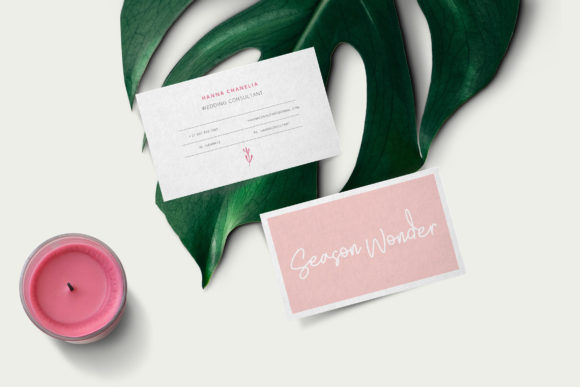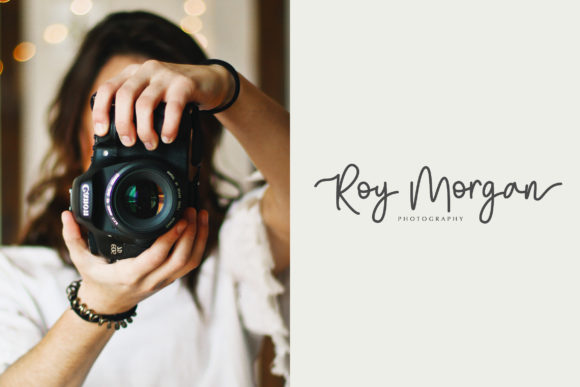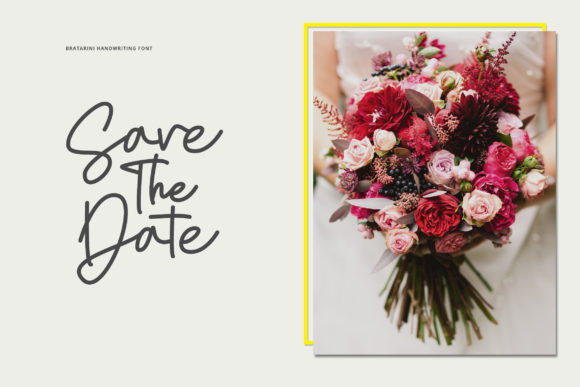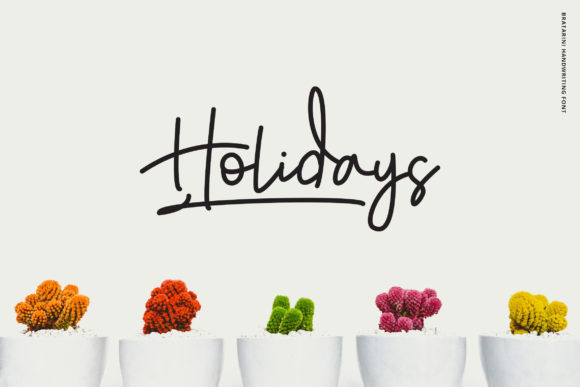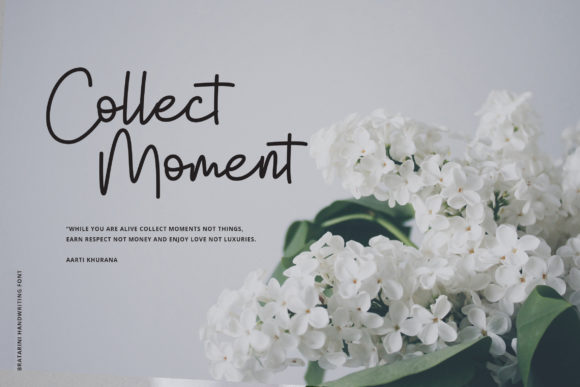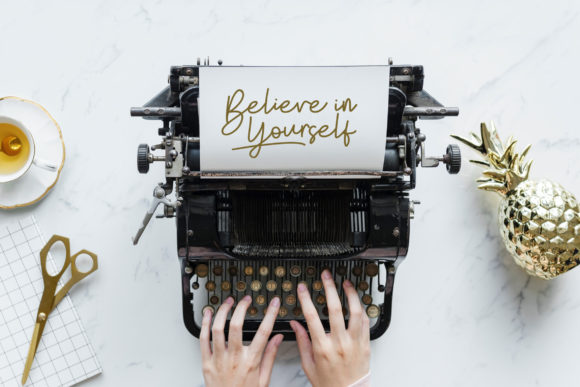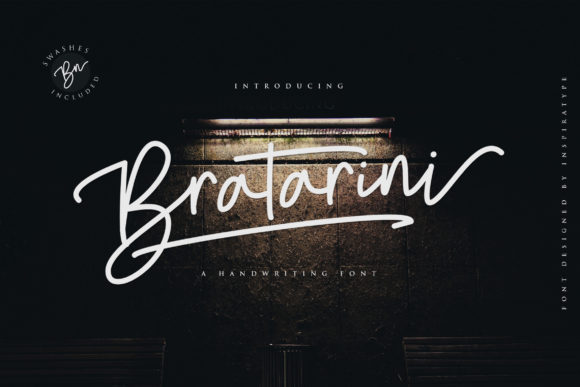
Discover the Charm of Bratarini Font: A Light and Breezy Handwritten Delight
Are you a designer or crafter looking for a font that exudes a sense of carefree elegance? Look no further than Bratarini, a beautiful handwritten font that’s sure to capture your heart. With its unique twist and authentic charm, Bratarini is the perfect choice for a wide range of creative projects.
The Story Behind Bratarini
Bratarini is a light and breezy handwritten font that’s designed to evoke a sense of freedom and spontaneity. Its creator, [Font Creator’s Name], drew inspiration from the beauty of handwritten script and the imperfections that make it so charming. The result is a font that’s both elegant and playful, with a unique character that’s sure to set your designs apart.
What Makes Bratarini So Special?
So, what sets Bratarini apart from other fonts? Here are just a few of its standout features:
- Unique Twist: Bratarini has a distinctive twist that gives it a sense of movement and energy. This makes it perfect for designs that need a bit of flair and personality.
- Light and Breezy: With its light and airy feel, Bratarini is ideal for designs that need to convey a sense of freedom and spontaneity.
- Handwritten Charm: Bratarini’s handwritten origins give it a warm, organic feel that’s perfect for designs that need a personal touch.
Using Bratarini in Your Designs
Bratarini is a versatile font that can be used in a wide range of creative projects, from:
- Branding and Packaging: Use Bratarini to add a touch of elegance and sophistication to your brand’s packaging and marketing materials.
- Stationery and Invitations: Bratarini is perfect for creating beautiful stationery, invitations, and greeting cards that need a personal touch.
- Digital Design: Use Bratarini in your digital designs, such as website headers, social media graphics, and email newsletters, to add a bit of flair and personality.
- Crafting and Scrapbooking: Bratarini is a great choice for crafters and scrapbookers who want to add a touch of elegance and sophistication to their projects.
Tips for Getting the Most Out of Bratarini
Here are a few tips for getting the most out of Bratarini:
- Experiment with Different Sizes: Bratarini looks great in a variety of sizes, from large headings to smaller body text.
- Play with Color: Bratarini’s light and breezy feel makes it perfect for use with a range of colors and textures.
- Mix and Match: Try pairing Bratarini with other fonts to create a unique and eye-catching design.
Bratarini is a beautiful handwritten font that’s sure to capture your heart. With its unique twist, light and breezy feel, and authentic charm, it’s the perfect choice for designers and crafters who want to add a touch of elegance and sophistication to their projects. So why not give Bratarini a try and see the difference it can make?
Get Inspired by Bratarini’s Authentic Charm
Take a look at some of the amazing designs that can be created with Bratarini: